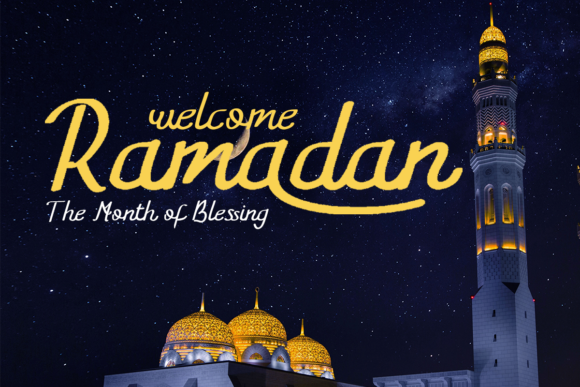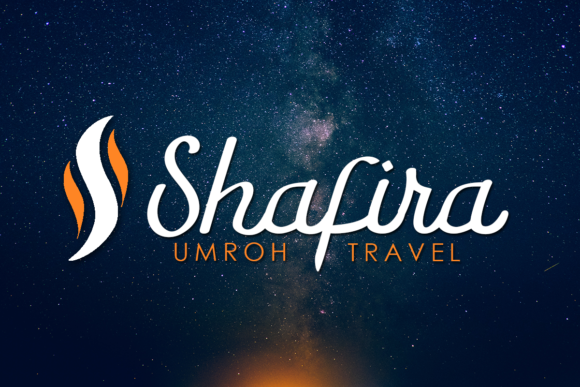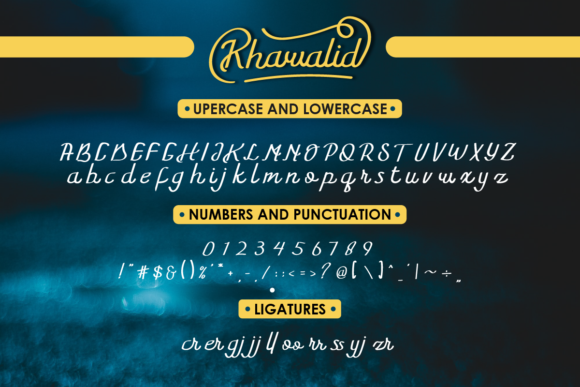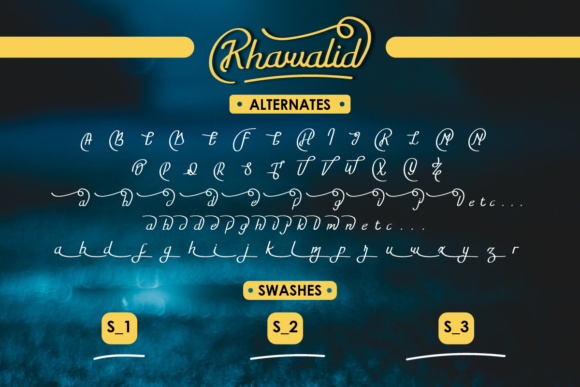
Khawalid Font
About Khawalid Font
Khawalid is a script font that provides various additional tails for each letter. The variation of the tail on the letters gives you many alternatives to your designs. This font is also equipped with 3 levels of swashes.